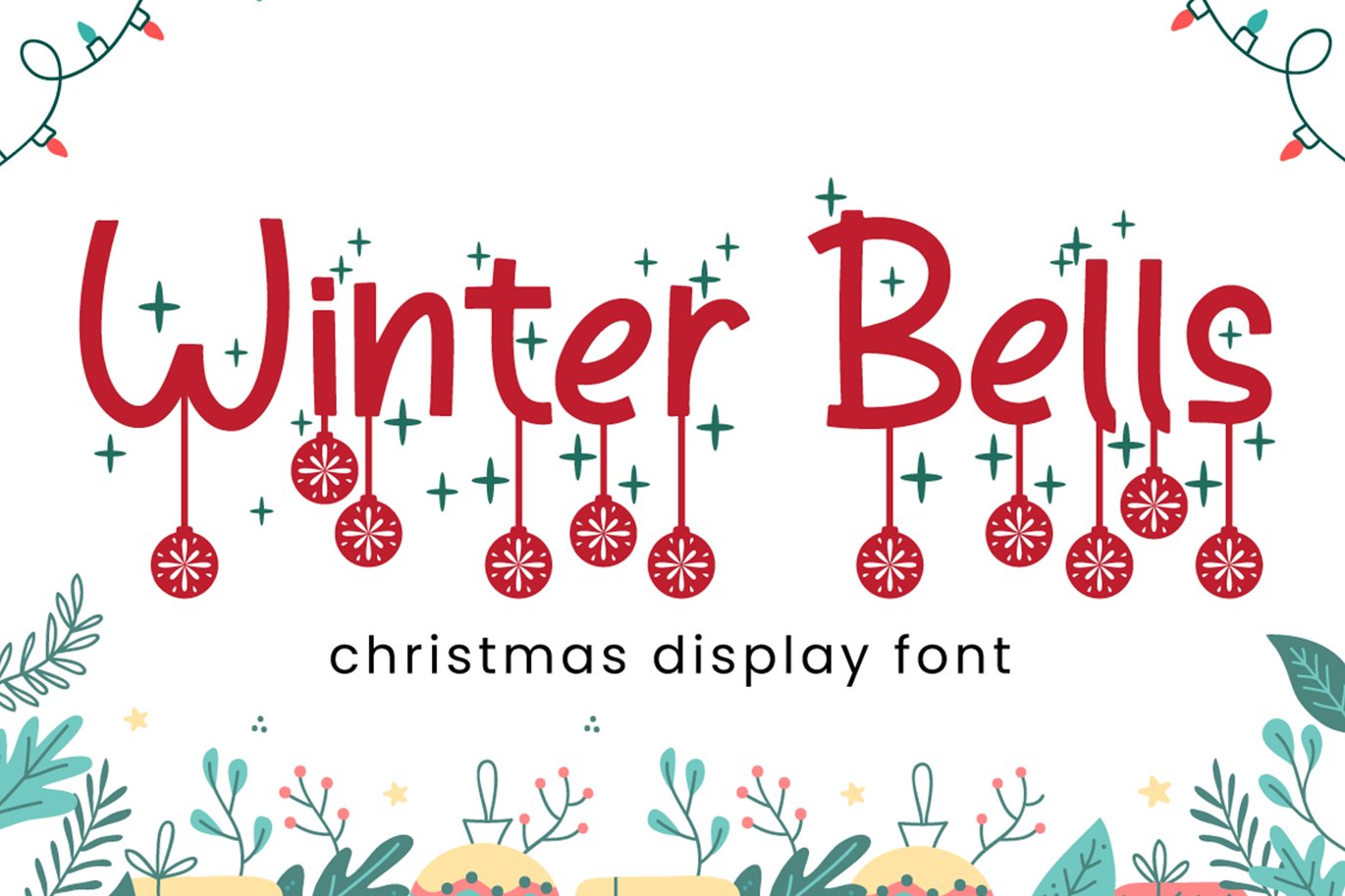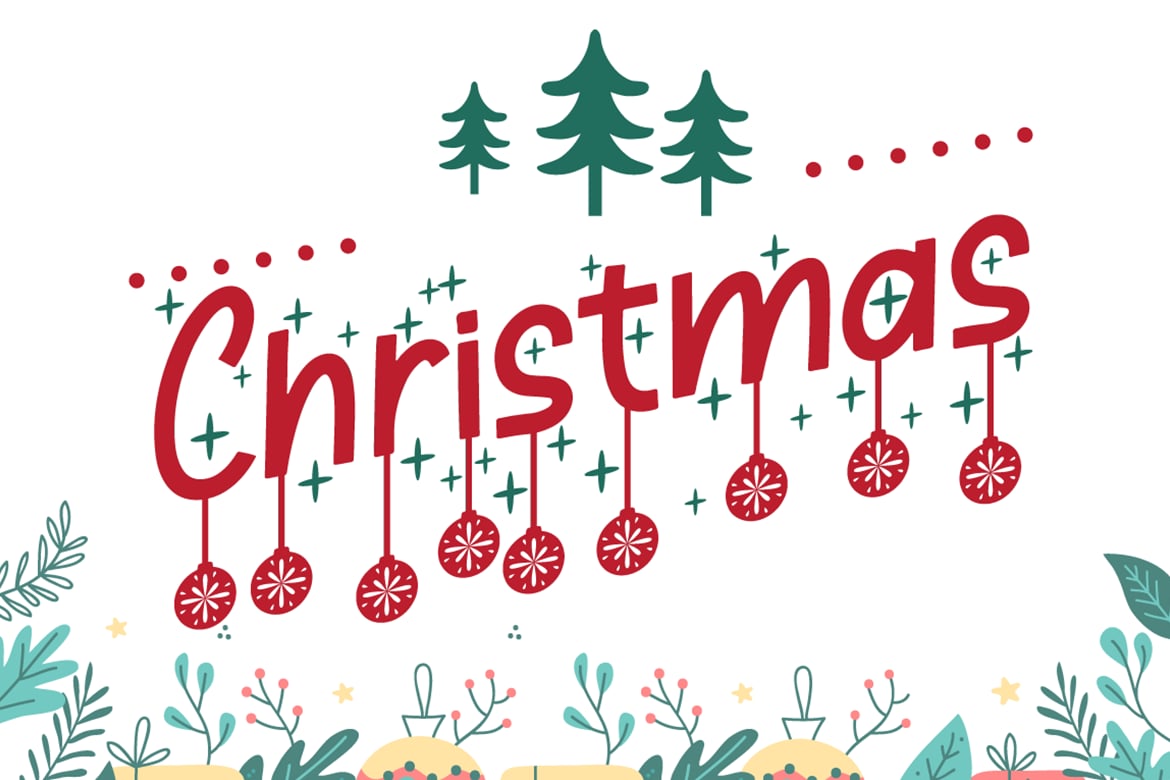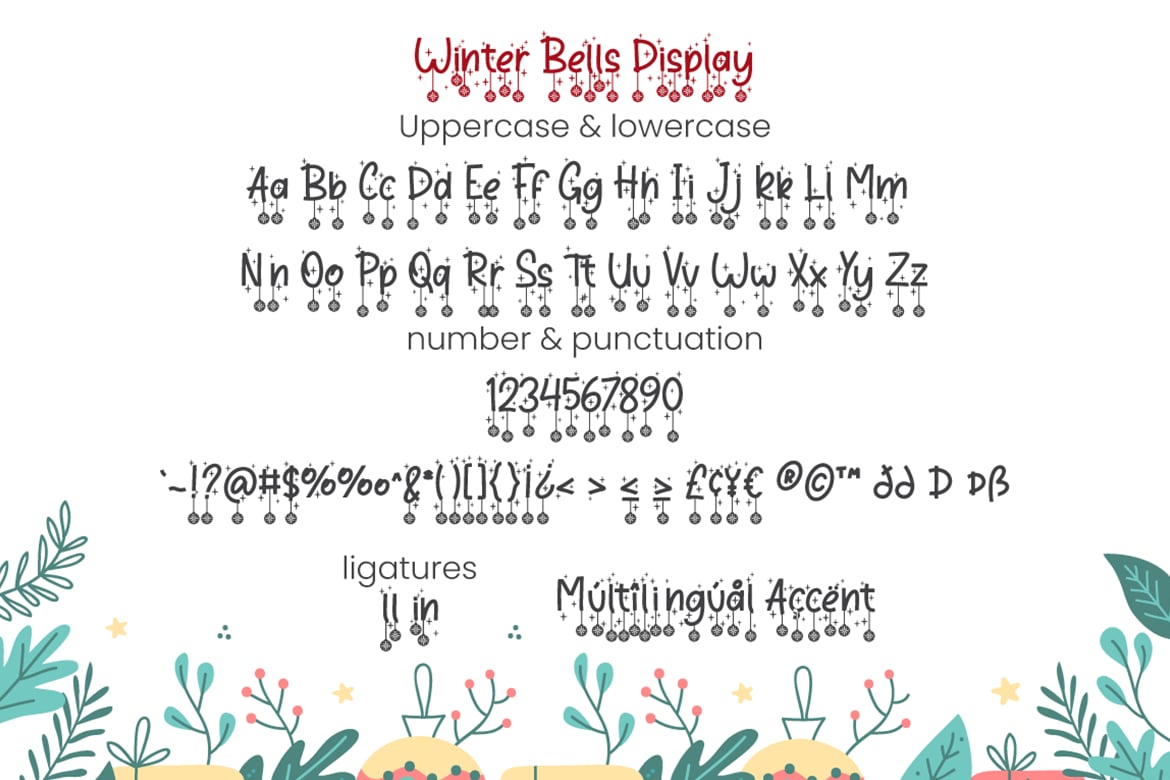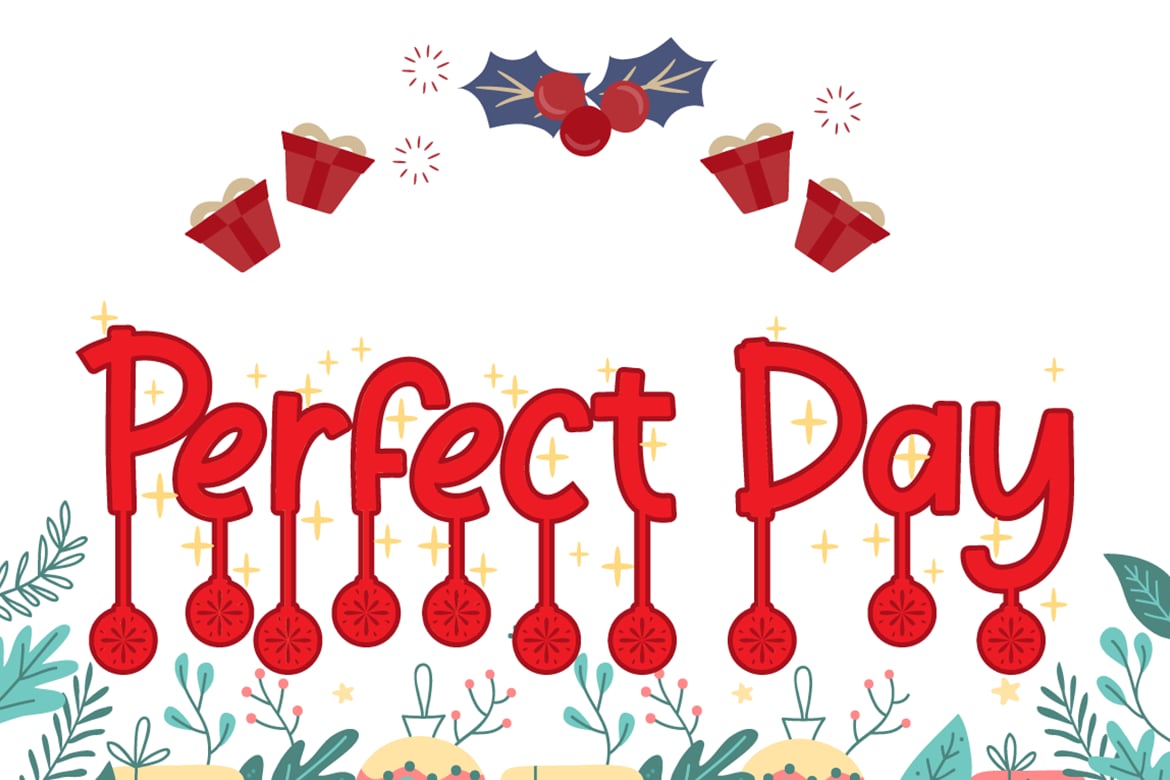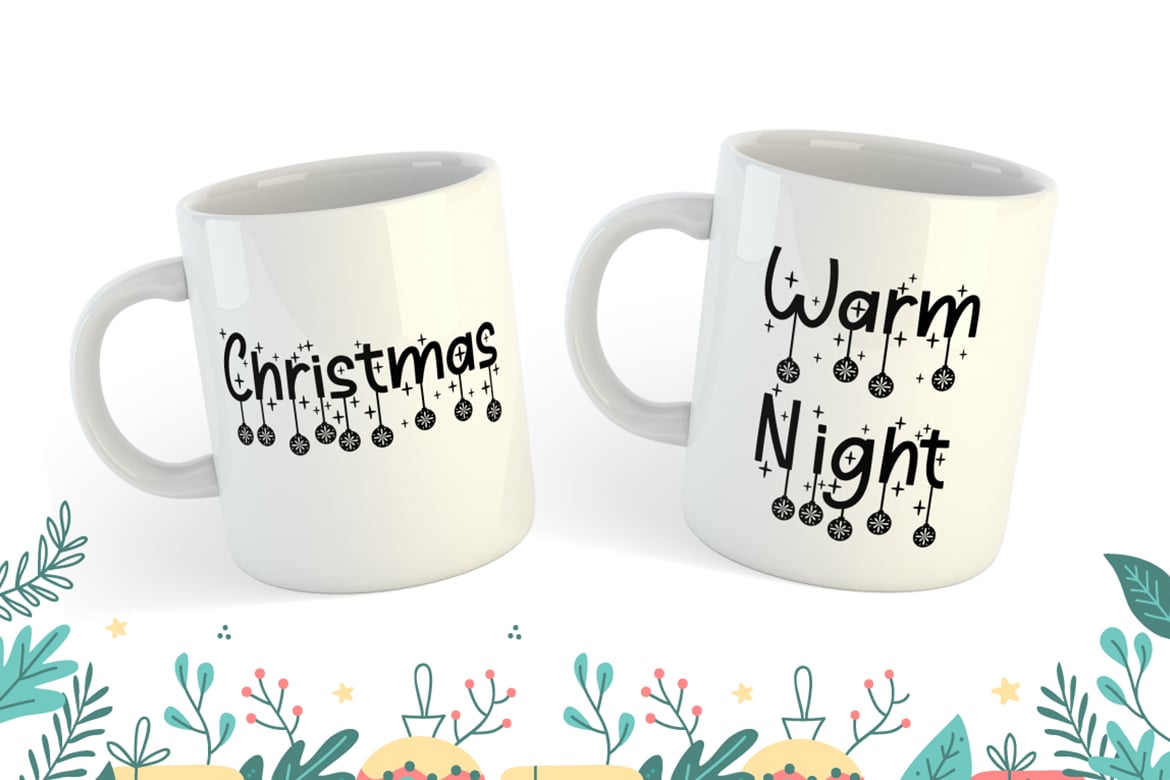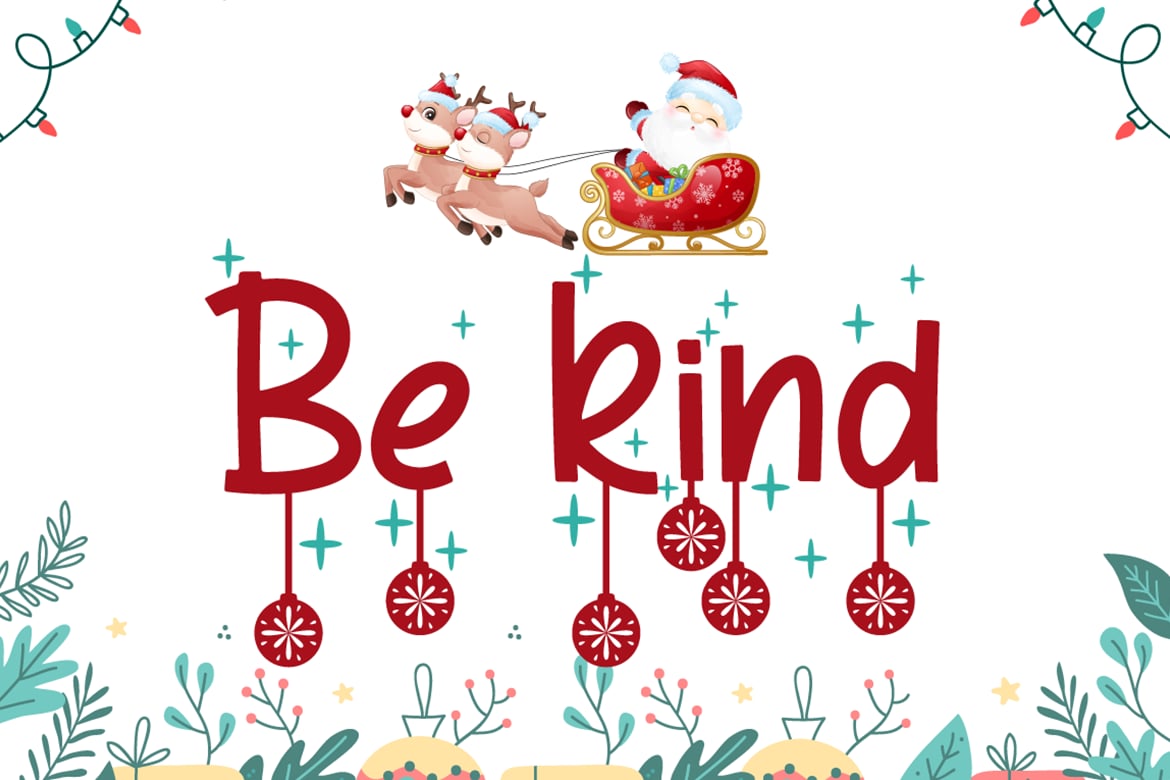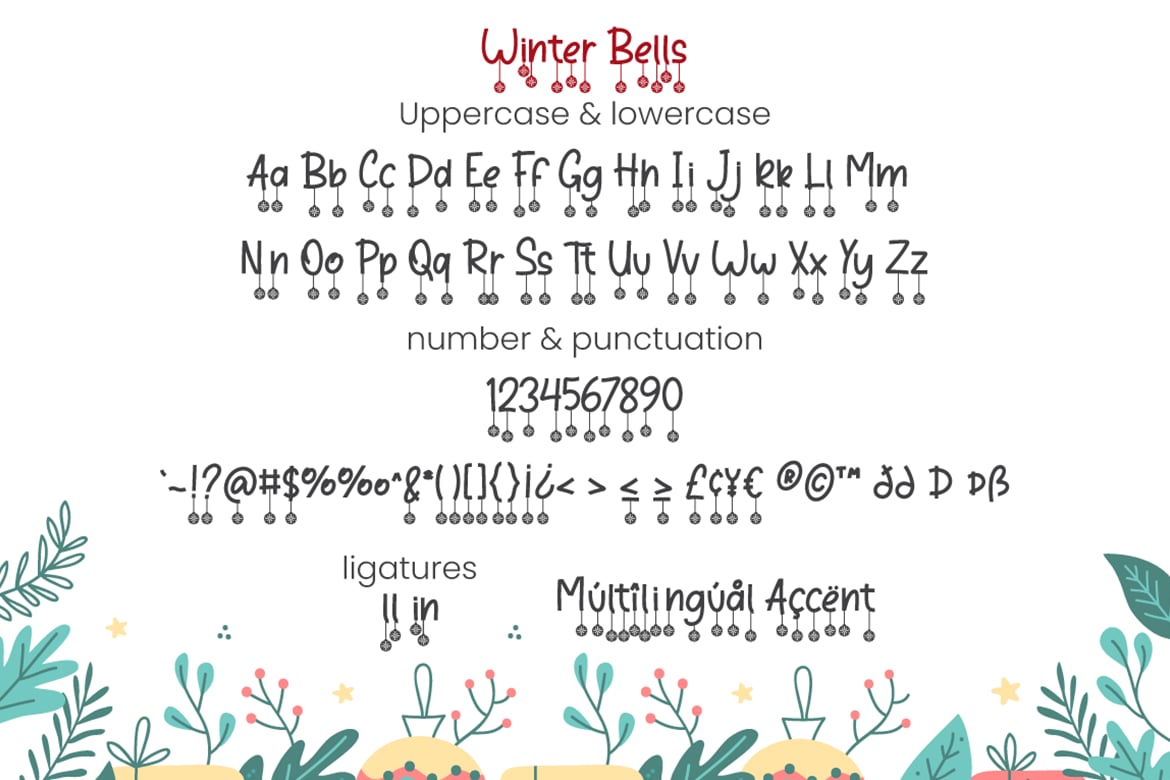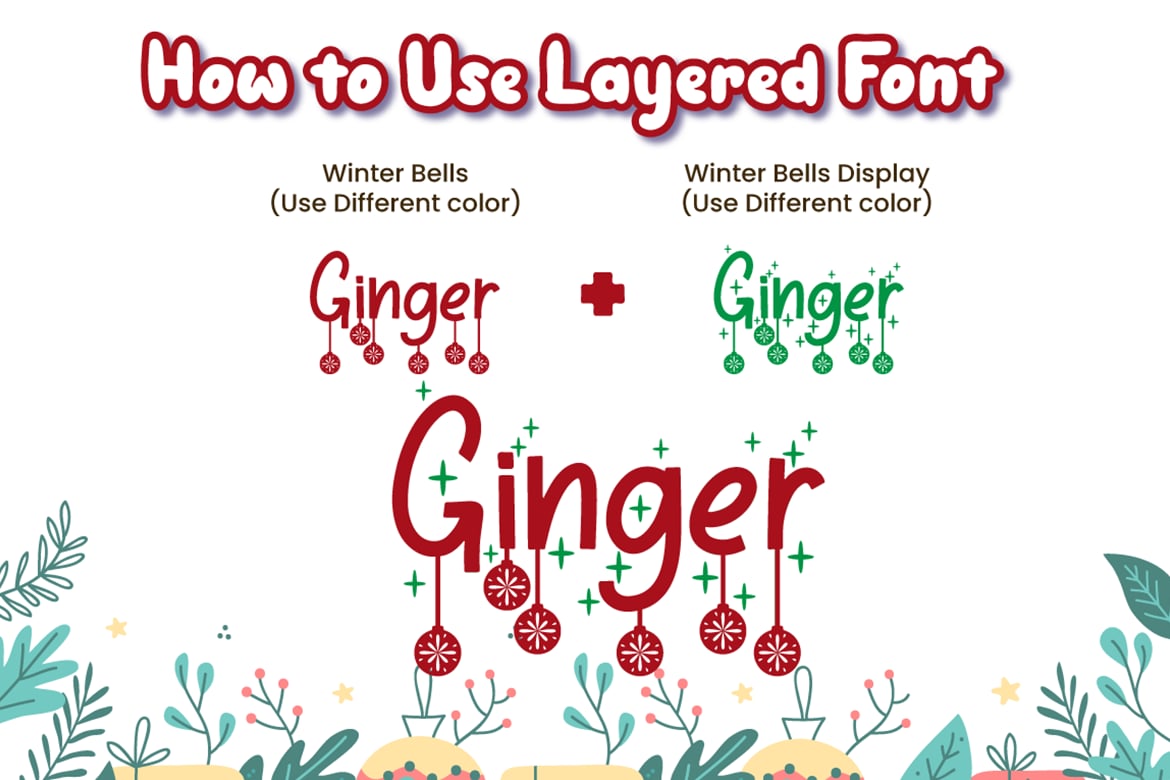
Winter Bells – Christmas Font
Winter Bells is a delicate and incredibly distinct Christmas display font with dingbats character of bells. Perfect for christmas promotion and christmas design, Fall in love with its incredibly versatile style and use it to create spectacular designs!
Winter Bells is perfect for branding, logo, invitation, stationery, social media post, product packaging, merchandise, christmas font,
blog design, game titles, cute style design, Book/Cover Title and more.
- Beginning & Ending Dingbats